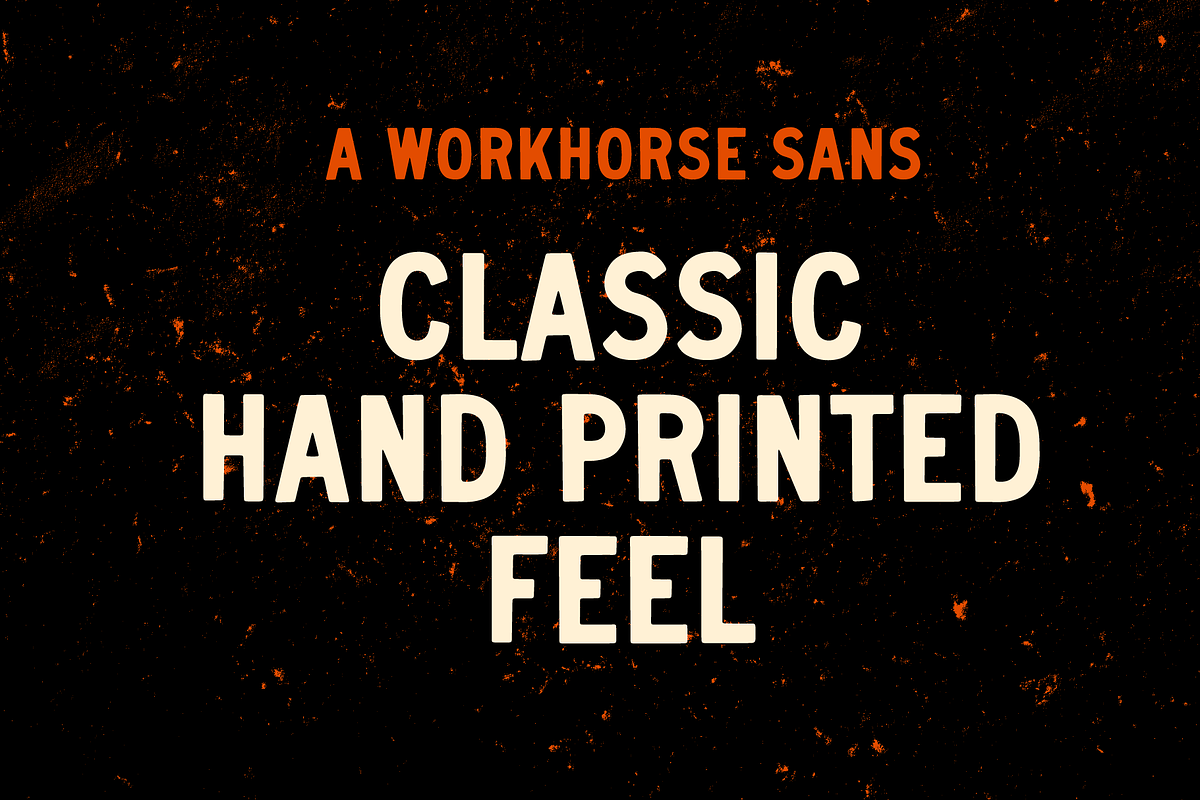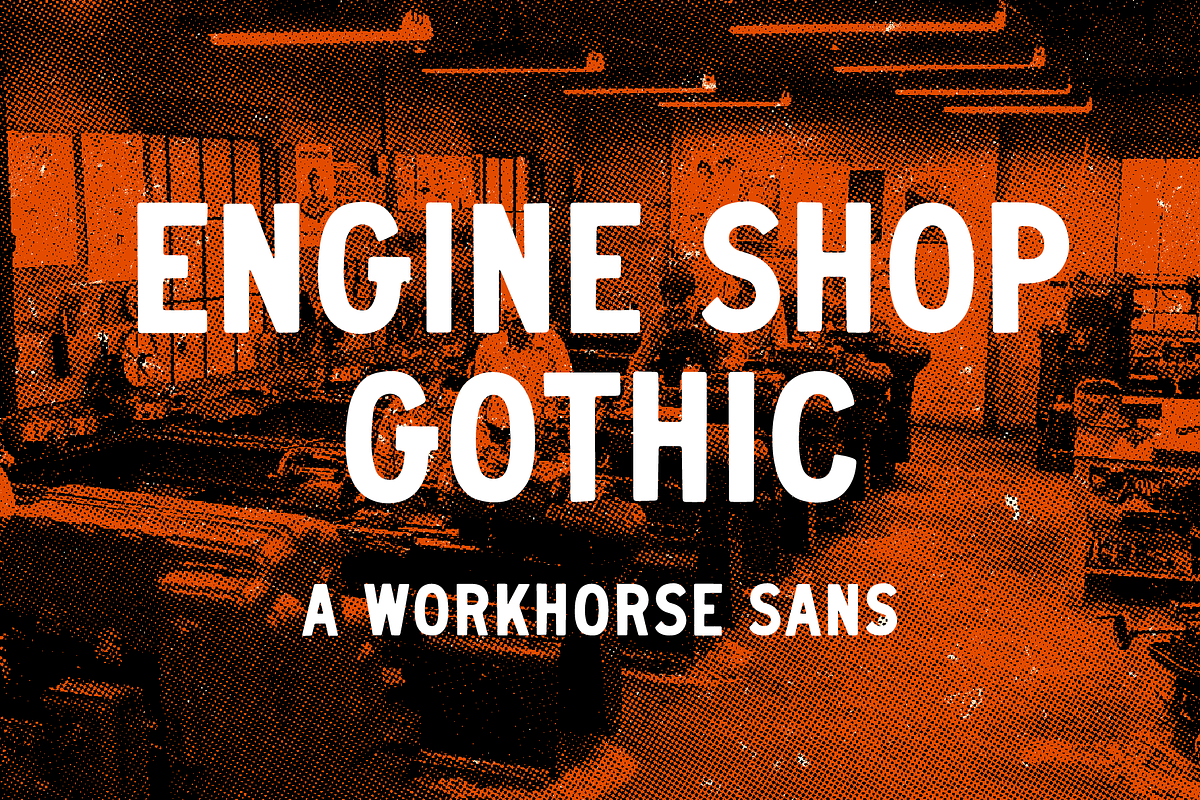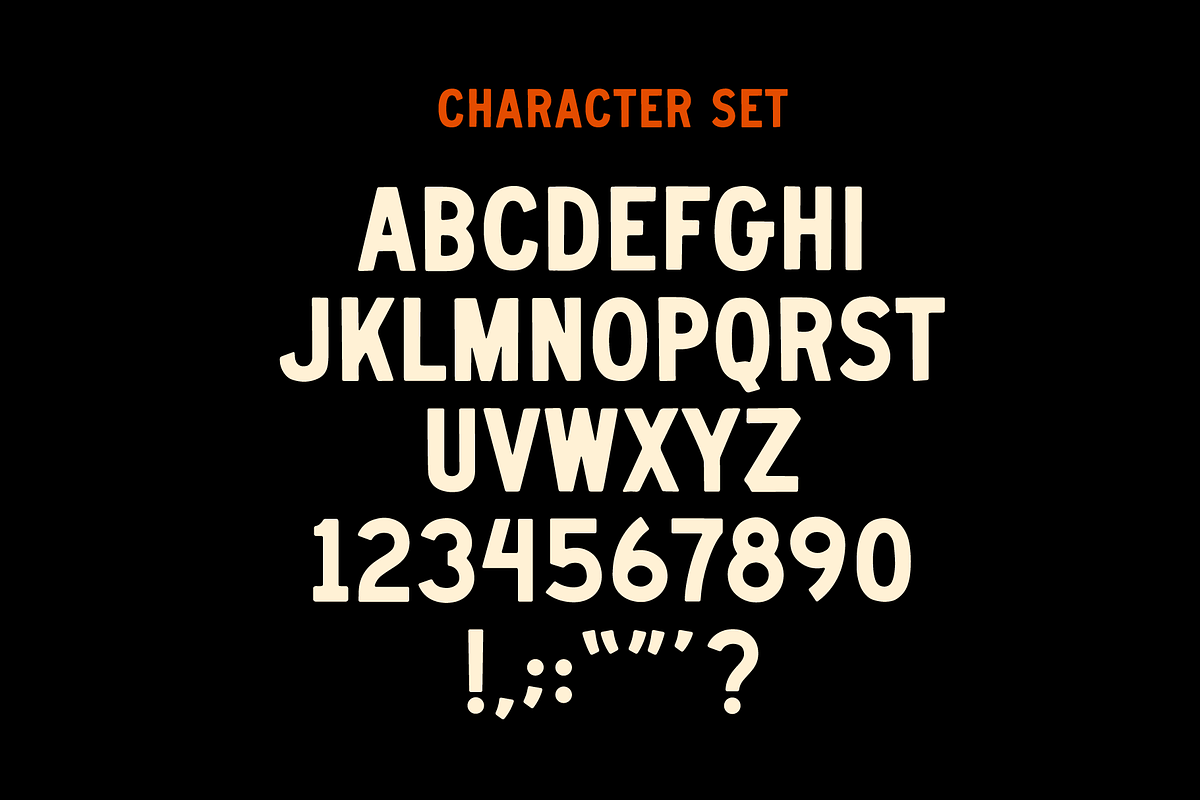
Engine Shop Gothic Sans Serif Font
A rugged and retro sans serif inspired by the typefaces found on old machine parts and labels. I couldn't find exactly what I was looking for, so I made it myself and am now sharing it with you!
An all-caps display typeface, including numbers and basic punctuation